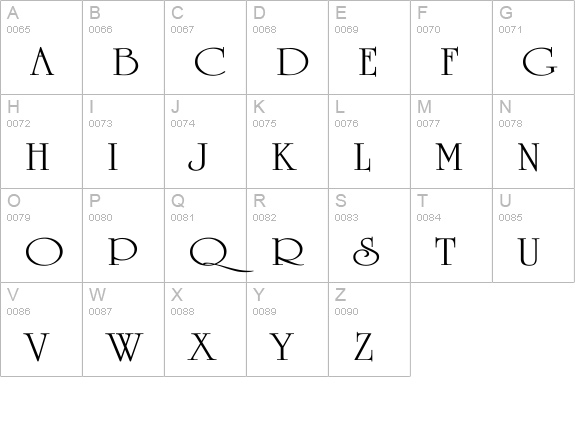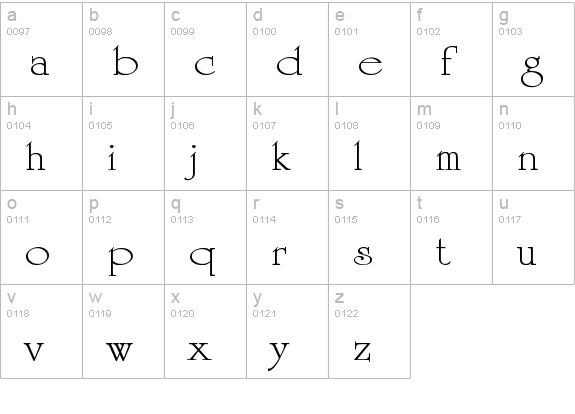
University Wd Font Details
University Wd font is a versatile and stylish typeface that combines the elegance of a serif font with the boldness of a sans serif. It is the perfect choice for any design project, whether it be a logo, website, or print materials. Featuring clean lines and sharp edges, University Wd font exudes a sense of professionalism and sophistication, making it ideal for academic institutions, corporate branding, or any project that requires a touch of refinement. Not only does University Wd font offer aesthetic appeal, but it also provides ease of readability, ensuring that your message is conveyed effectively to your audience. The carefully crafted letterforms and generous spacing make for comfortable reading, whether in small or large sizes. And the best part? University Wd font is free! That's right, you can freely download this amazing font at FontsMarket.com. With just a few clicks, you can add this incredible typeface to your design arsenal, without breaking the bank. So why wait? Download University Wd font today and elevate your designs to new heights. Whether you're a student, professional, or design enthusiast, this font is a must-have for anyone looking to make a lasting impression. Don't miss out on the opportunity to enhance your projects with this exceptional font, available for free at FontsMarket.com.